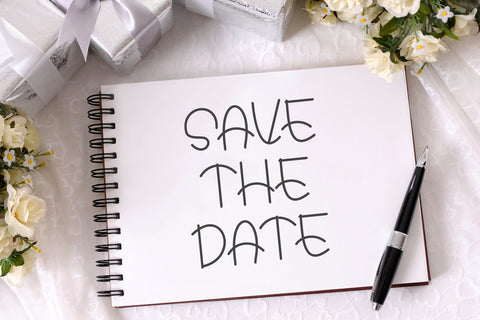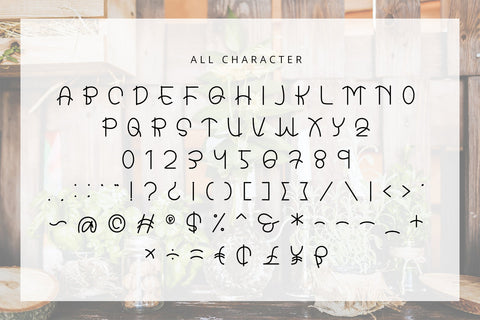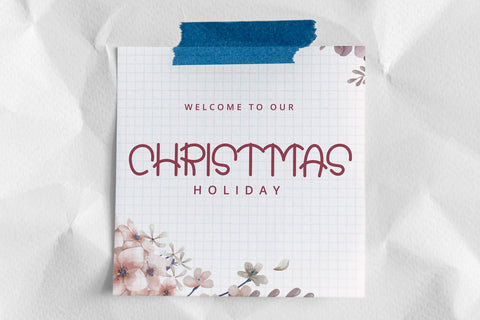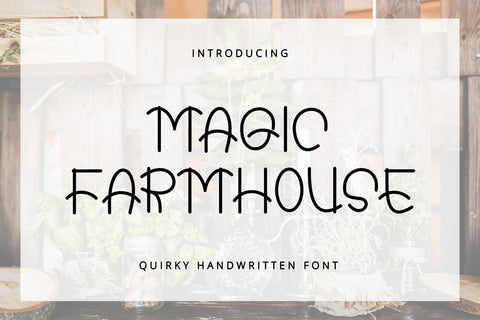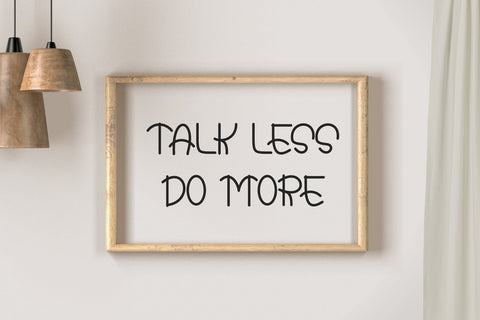
Magic Farmhouse - Quirky Handwritten Font
Magic Farmhouse is a handwritten font with cute and unique style. It will be perfectly used for Branding, Logo Design, Lettering, Logotype, Clothing, Poster, magazine, packaging, posters, shopping bags, t-shirts, book covers, photography, special events and other design project.